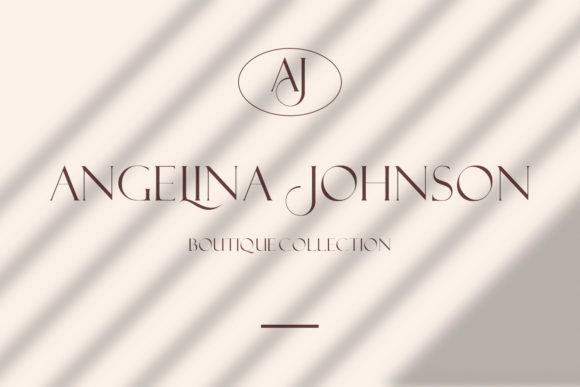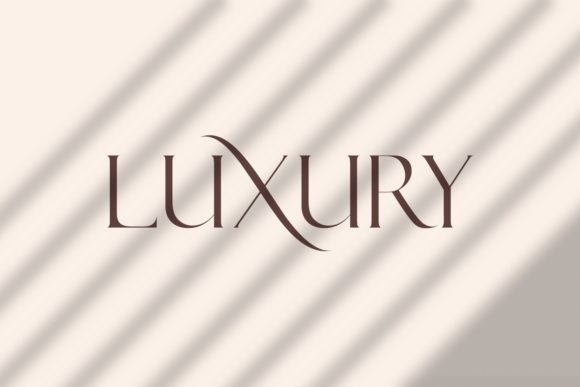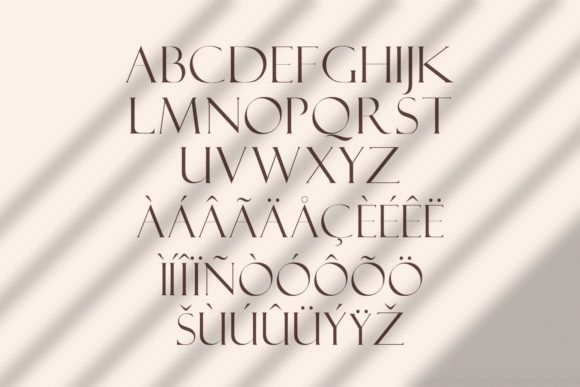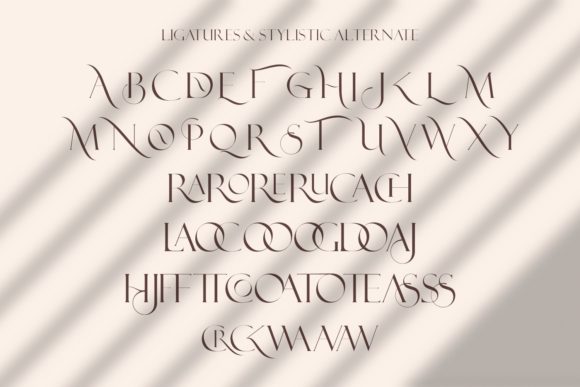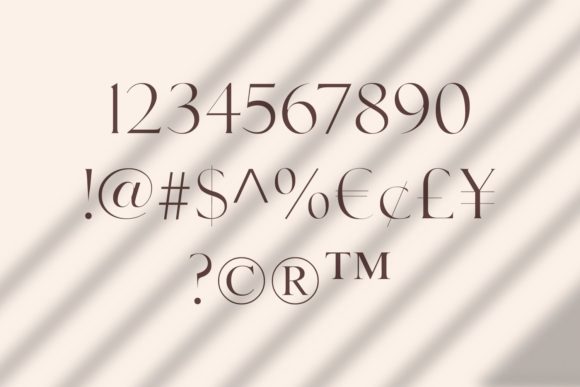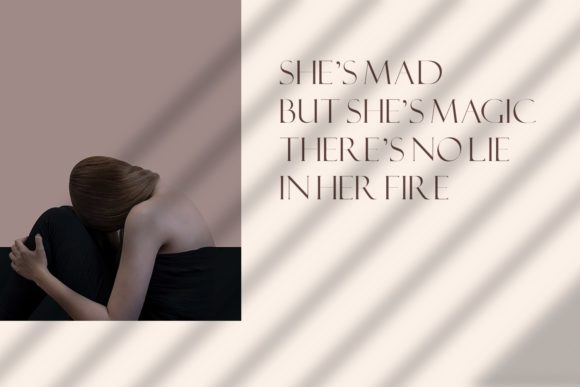
Croom Font: Elevate Your Designs with Classic Elegance
In the world of typography, a well-chosen font can make all the difference in the success of a design project. For those seeking a classic and elegant serif font that strikes the perfect balance between sophistication and readability, look no further than Croom. This versatile typeface was carefully crafted to enhance the beauty of your projects, whether you’re a designer, crafter, or simply a typography enthusiast.
The Characteristics of Croom Font
Croom is a serif font that exudes timeless elegance, making it an excellent choice for a wide range of applications, from luxury branding and high-end magazines to elegant invitations and crafts. One of its standout features is its balanced and varied design. Not too thin and not too thick, Croom’s strokes are meticulously crafted to provide a harmonious visual experience. This balance ensures that the font remains legible even at smaller sizes, making it incredibly versatile for various design needs.
Design Philosophy Behind Croom
The design philosophy behind Croom is rooted in the pursuit of classic elegance and versatility. The creators of Croom aimed to develop a font that would not only stand the test of time but also complement a wide array of design aesthetics. By avoiding extreme weights and focusing on a balanced approach, Croom manages to be both sophisticated and approachable. This makes it an excellent choice for designers who want a serif font that can add a touch of luxury to their work without overshadowing the content.
Use Cases for Croom Font
Croom’s flexibility makes it suitable for a multitude of projects. Here are some of the most popular use cases:
- Branding and Logo Design: Croom’s classic and elegant appearance makes it an excellent choice for luxury brands looking to establish a sophisticated identity.
- Print Design: Whether you’re working on a high-end fashion magazine, a gourmet cookbook, or an elegant wedding invitation, Croom can add a touch of refinement to your designs.
- Digital Design: Croom is also well-suited for digital platforms. Its clear and legible design makes it a great choice for e-books, blogs, and websites aiming for a sophisticated look.
- Crafting and DIY Projects: For crafters and DIY enthusiasts, Croom can add a professional and elegant touch to handmade cards, journals, and other craft projects.
Why Choose Croom Font?
There are several reasons why designers and crafters might prefer Croom over other serif fonts:
- Timeless Appeal: Croom’s classic design ensures that it won’t go out of style anytime soon, making it a valuable asset for any design library.
- Versatility: Its balanced design makes it suitable for a wide range of projects, from elegant and luxurious to more approachable and friendly.
- Readability: Croom’s careful attention to stroke widths and letter spacing ensures that it remains highly legible, even at smaller sizes.
Croom font is a classic and elegant serif typeface that can elevate the beauty of your projects. Its balanced and varied design makes it a versatile choice for designers and crafters looking to add a touch of sophistication to their work. Whether you’re creating luxury branding, print designs, digital content, or crafting handmade projects, Croom is an excellent choice. With its timeless appeal, versatility, and readability, Croom is sure to become a staple in your design library.
With Croom font, you’re not just choosing a typeface; you’re embracing a design philosophy that values elegance, versatility, and timelessness. Whether you’re a seasoned designer or a crafting enthusiast, Croom is poised to become your go-to font for projects that demand a little extra sophistication.